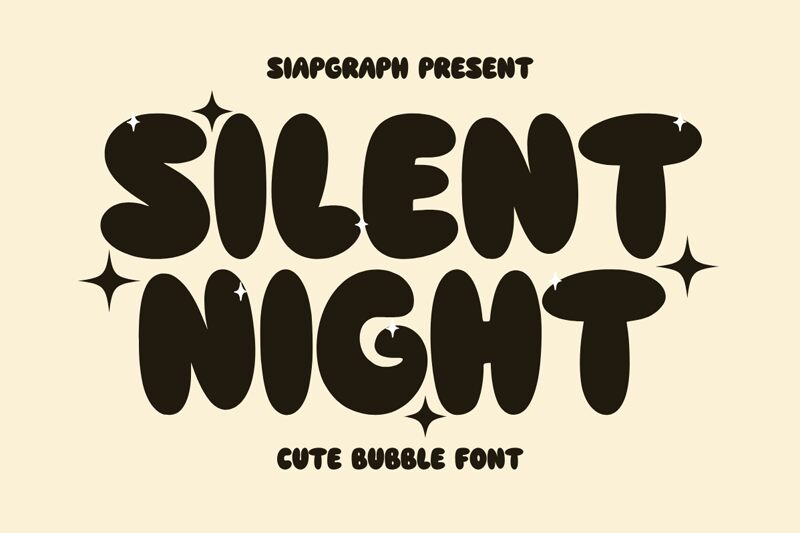
Silent Night font is a free cartoon font designed by Siapgraph. With its rounded, soft, and inviting forms, Silent Night combines a whimsical and retro-inspired style with a friendly, bold presence. This font is great for contemporary applications in casual and youthful designs. Channeling the playfulness of cartoon aesthetics, it captures a joyful and lively spirit that instantly grabs attention.
Silent Night is suitable for creating fun logos, poster headlines, children's book covers and interior pages, fun videos or animations, game designs, and more. Use it to decorate invitation cards, greeting cards, flyers, and many more print design applications.